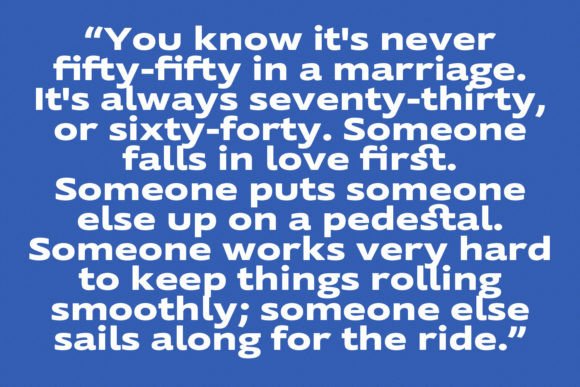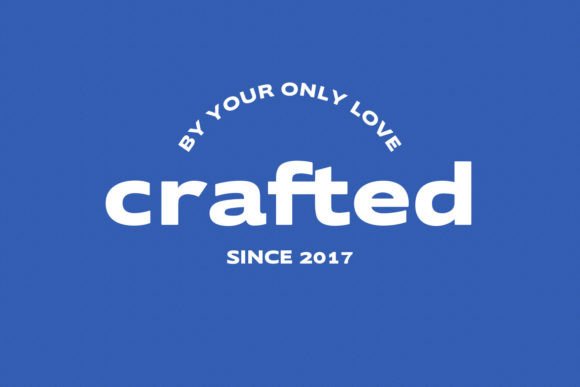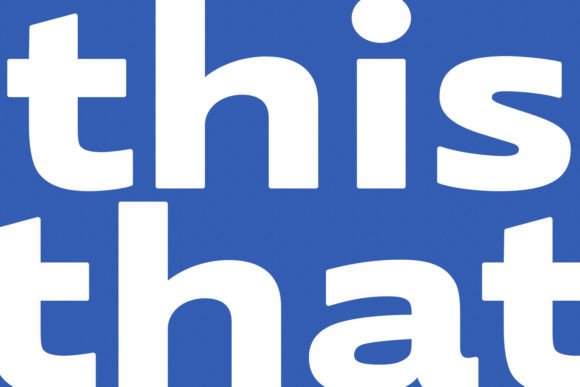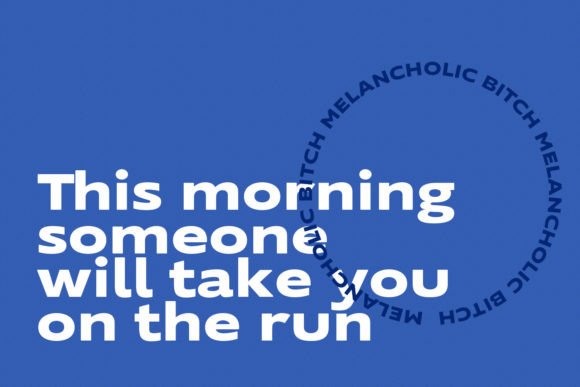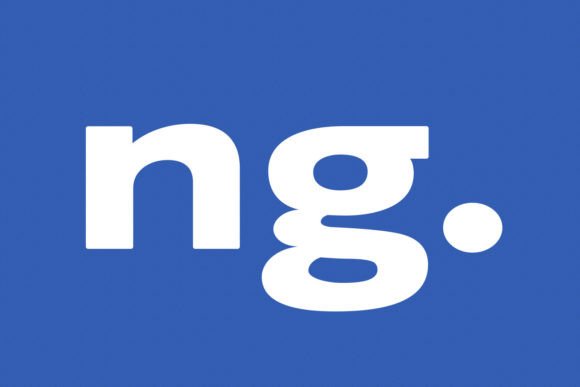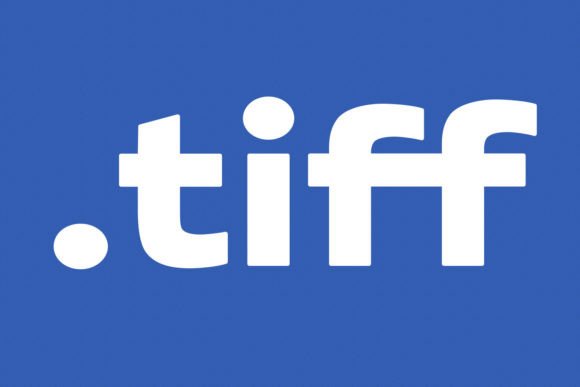
Introduction to Grazler Font
That’s where the Grazler Font comes in – a modern and cool sans serif display font that’s sure to elevate your designs to the next level. With its high-quality design and versatility, this font is perfect for creating unique t-shirt designs, posters, stickers, digital designs, cards, and more. And the best part? You can download it for free, with a transparent background that makes it easy to work with.
Key Features of Grazler Font
- High-quality design resource ideal for creative projects, including graphics, logos, and typography.
- Features a transparent background, allowing for seamless integration into various design compositions.
- Unique characteristics include a modern, bold aesthetic and a versatile design suitable for a range of creative applications.
Honest Review: Grazler Font
I recently stumbled upon the Grazler Font, and I must say it’s a solid addition to any designer’s toolkit. As a design resource, it’s a great choice for anyone working on a creative project.
- ✨ High-quality design: The font is well-designed, with clean lines and a modern feel.
- ⚠️ Limited customization options: While the font is great on its own, I wish there were more customization options available.
- ⚠️ Not suitable for complex typography: Due to its modern design, the Grazler Font may not be the best choice for complex typography projects.
Overall, I’m impressed with the Grazler Font. It’s a great choice for designers who want a high-quality, free font for their creative projects. While it may have some limitations, it’s a solid addition to any design toolkit.
Getting the Most Out of Grazler Font
To get the most out of the Grazler Font, use it in a creative project where its unique design and transparent background will shine. Experiment with different font sizes, colors, and combinations to create a visually appealing design. This free download is a valuable resource for any designer looking to add a touch of elegance to their work.